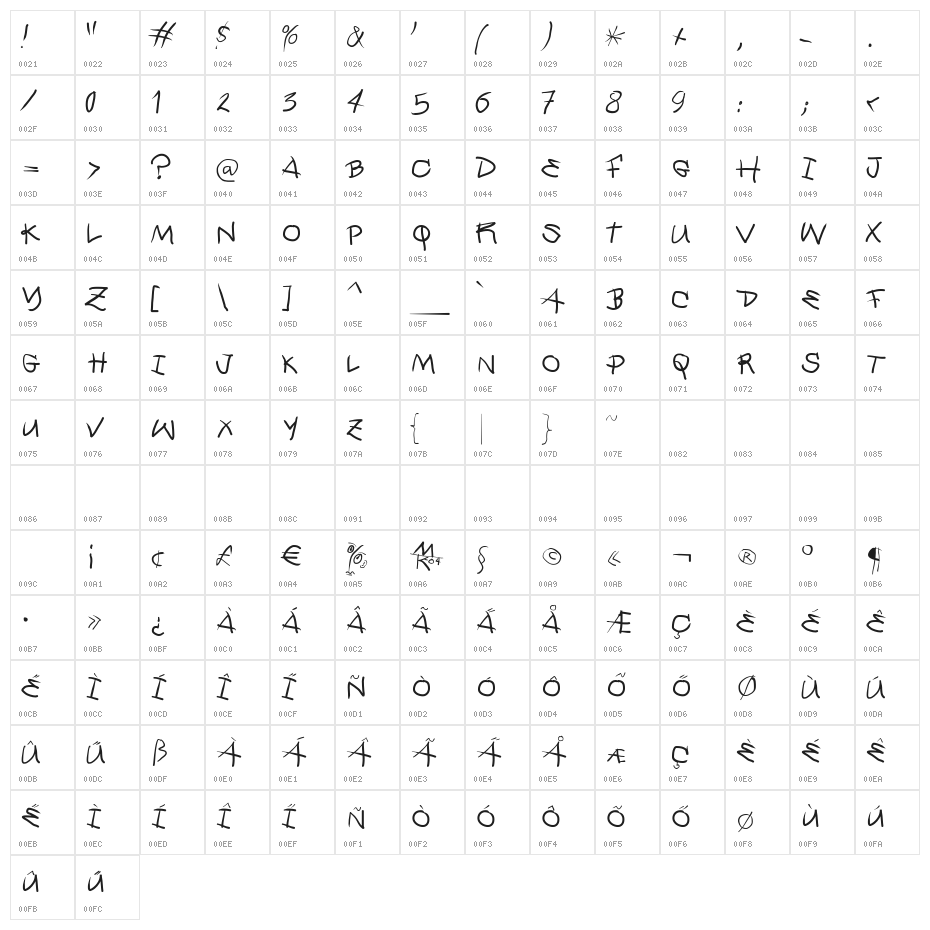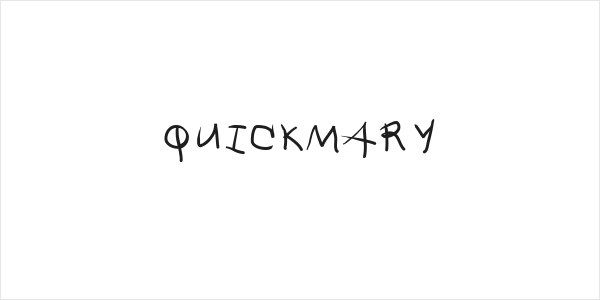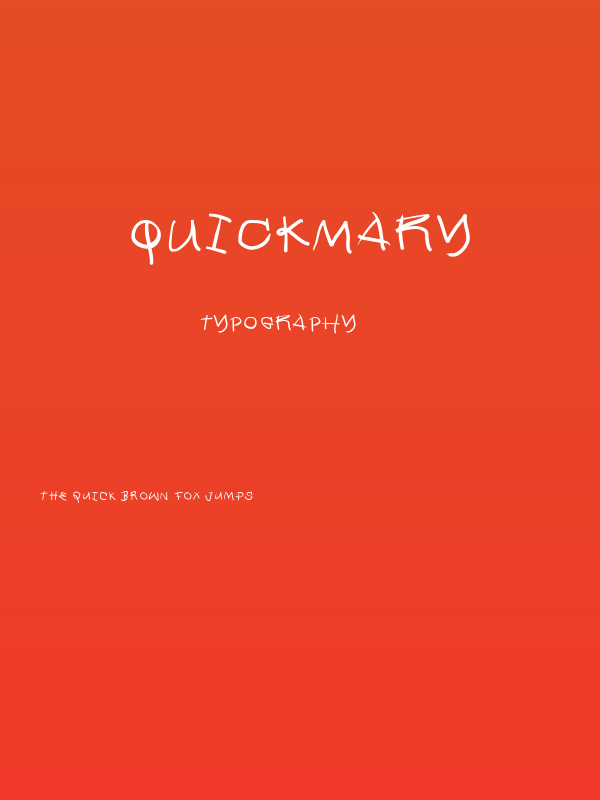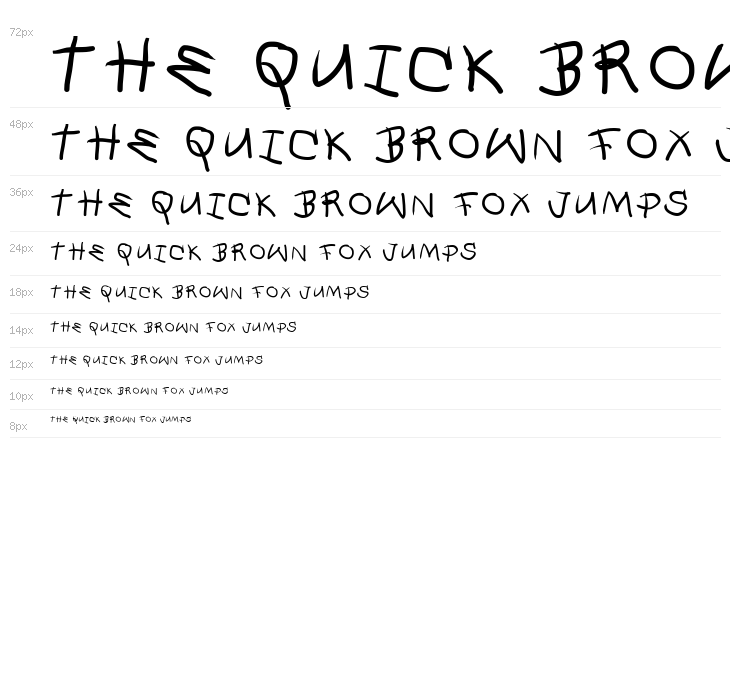
QuickMary Font
QuickMary Description
This font features a playful, handwritten style with a casual and informal appearance. The letters are slightly tilted and vary in size, giving it a dynamic and lively feel. The strokes are uneven, adding to the hand-drawn aesthetic. The uppercase and lowercase letters maintain a consistent style, with some characters like 'Q' and 'R' having unique, quirky designs. The numbers are bold and clear, making them easily readable. Special characters are included, matching the overall whimsical style. This font is perfect for projects that require a personal touch or a fun, creative vibe.
| Use Case | Headlines, Logos, Informal Text |
| Proposed Projects | Ideal for greeting cards, children's books, playful branding, and creative posters. |